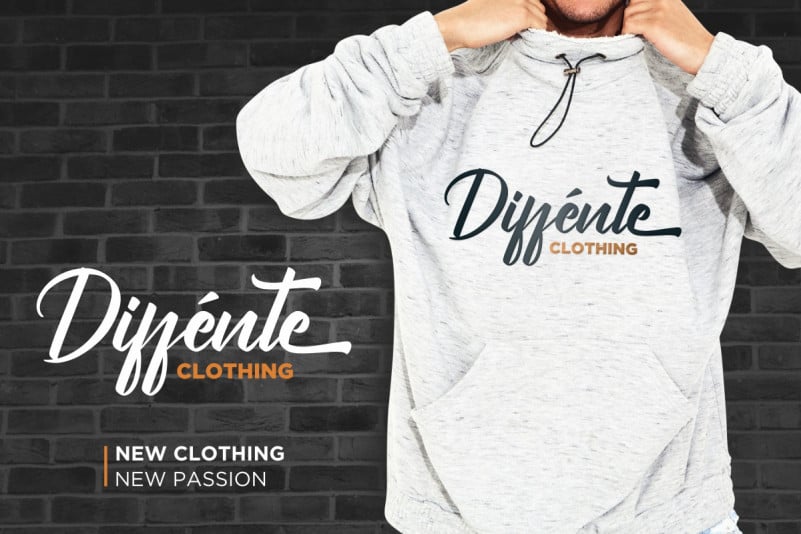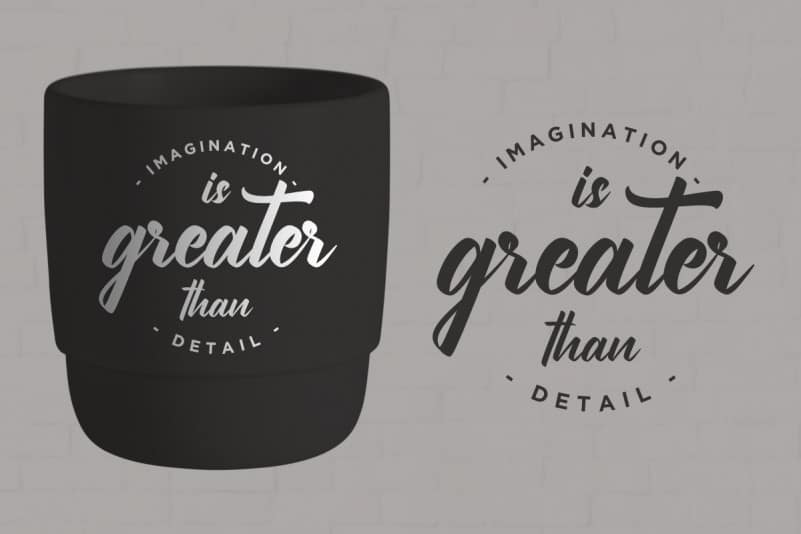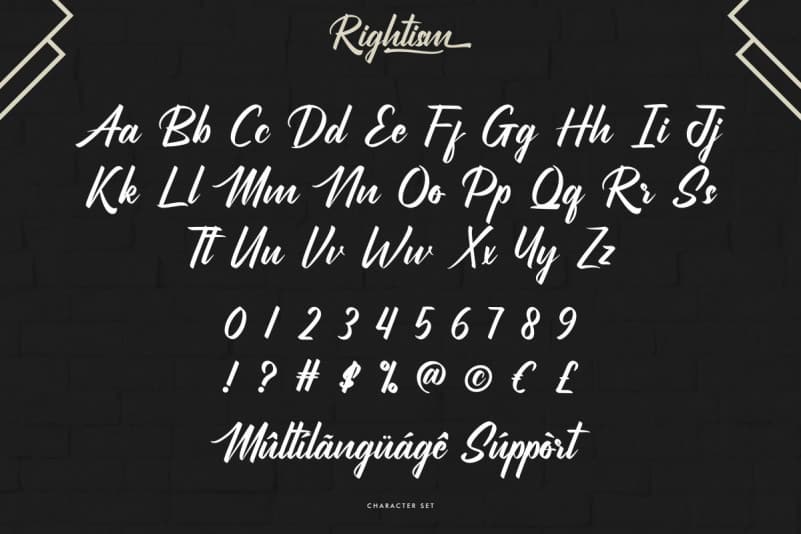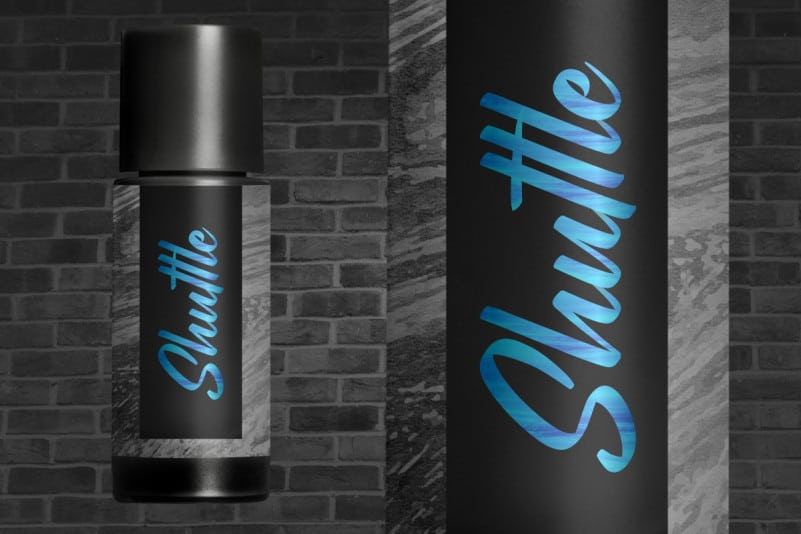
Rightism Script Font
Rightism Script Font is an exclusive handwritten brush calligraphy font. The style of this font are classic, stylish, old school, elegant, vintage and strong brush font.